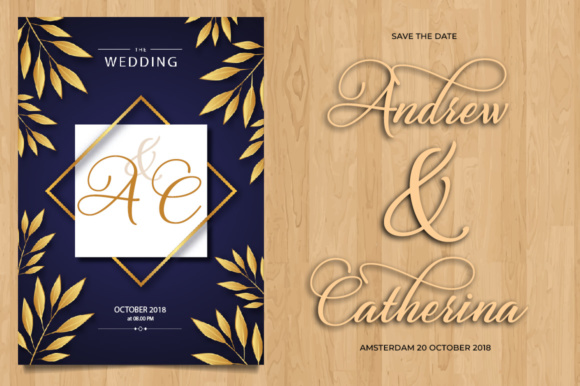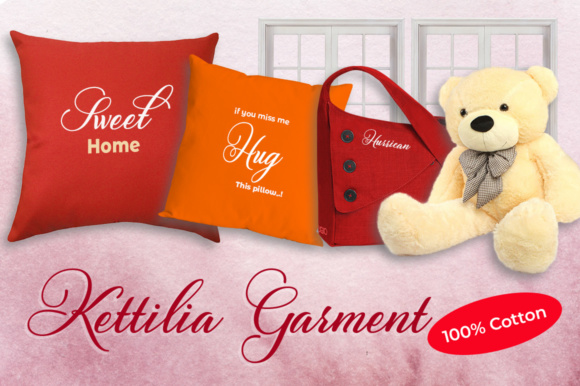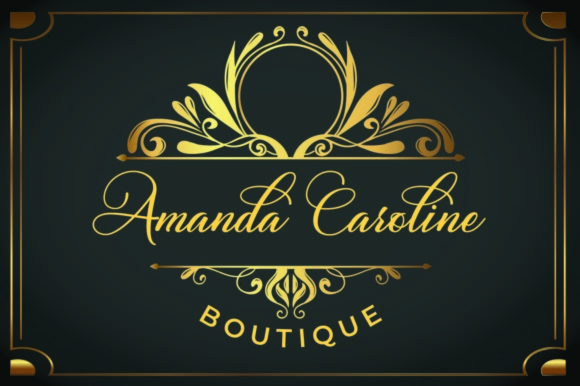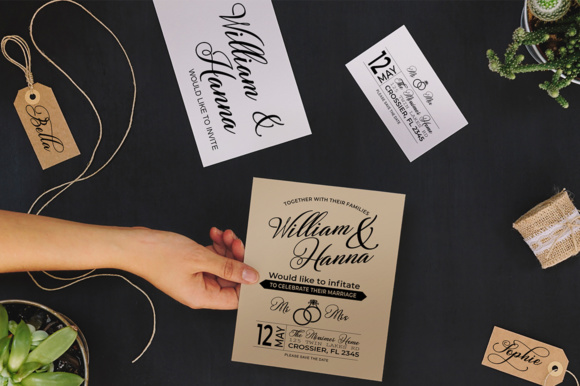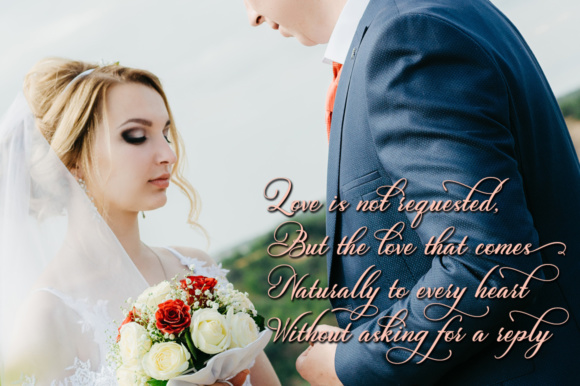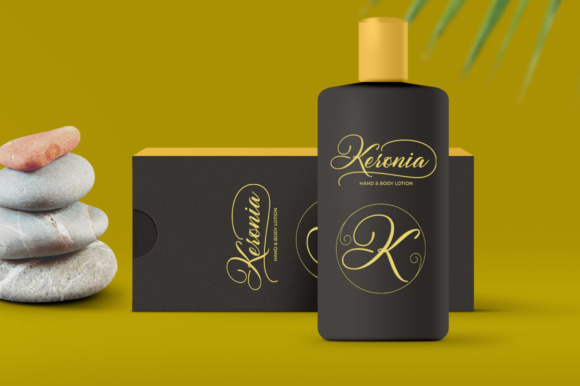
Introduction to Kattelyna Script Font
The Kattelyna is a formal script font with an elegant feel.
It’s ideal for wedding invitations, magazines, social media, restaurant menus, greeting cards, birthday invitations, headers and much more .
Key Features of Kattelyna Script Font
Why Choose Kattelyna Script Font?
Kattelyna Script Font offers exceptional quality and versatility, making it a valuable addition to your design toolkit. Whether you’re creating for personal projects or commercial use, Kattelyna Script Font delivers professional results.